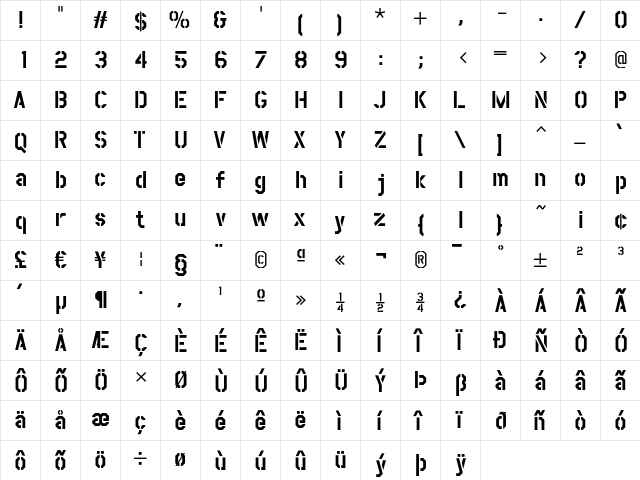
Container Regular Font Preview
Container Regular
Design Context for Container Typeface
Container is a composed and adaptable typeface that performs quietly and consistently across a wide range of design contexts.